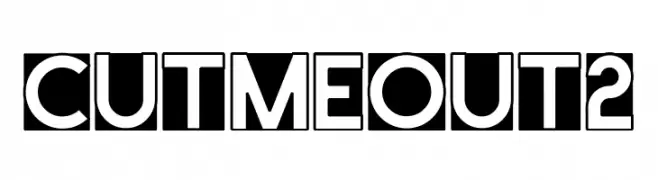
A bold, geometric font with high contrast and modern style.
A bold, geometric font with strong negative space and uniform character design.
Bold, geometric font with a unique cut-out effect for striking visual impact.
Bold, geometric font with high contrast and enclosed characters.